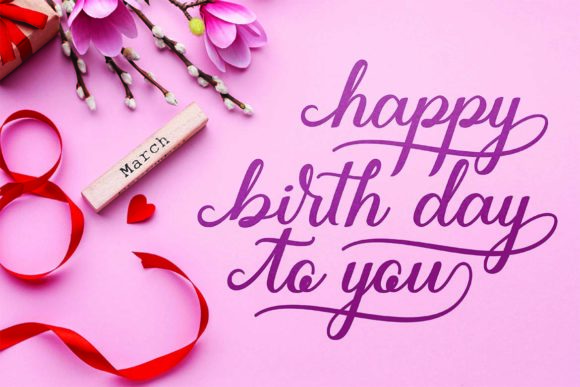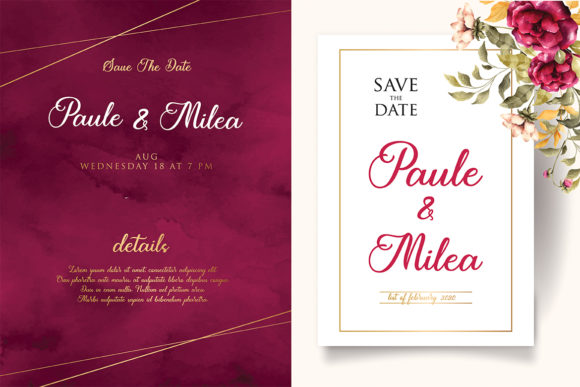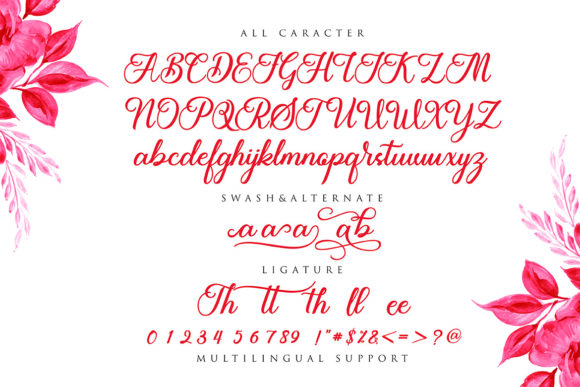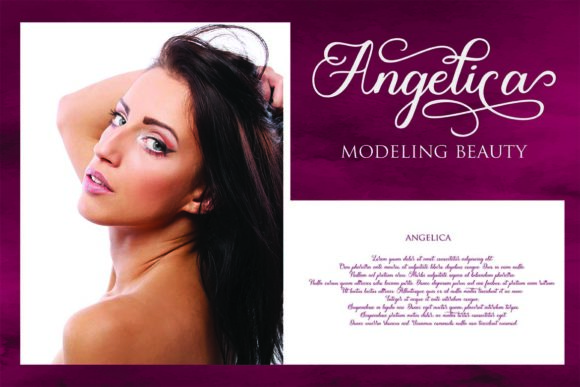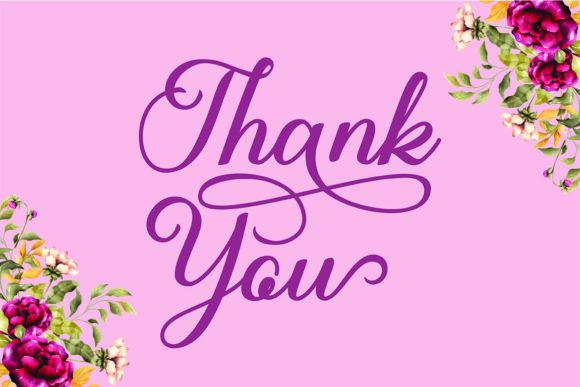
The Tweelie Font
About The Tweelie Font
The Tweelie is a modern script font that will elevate any craft idea to the highest level. The Tweelie comes with lots of swashes, which will allow you to add decorative touches in seconds.
This font is PUA encoded which means you can access all the magic glyphs and swash easily! It also has many special features including alternatives and ligatures.